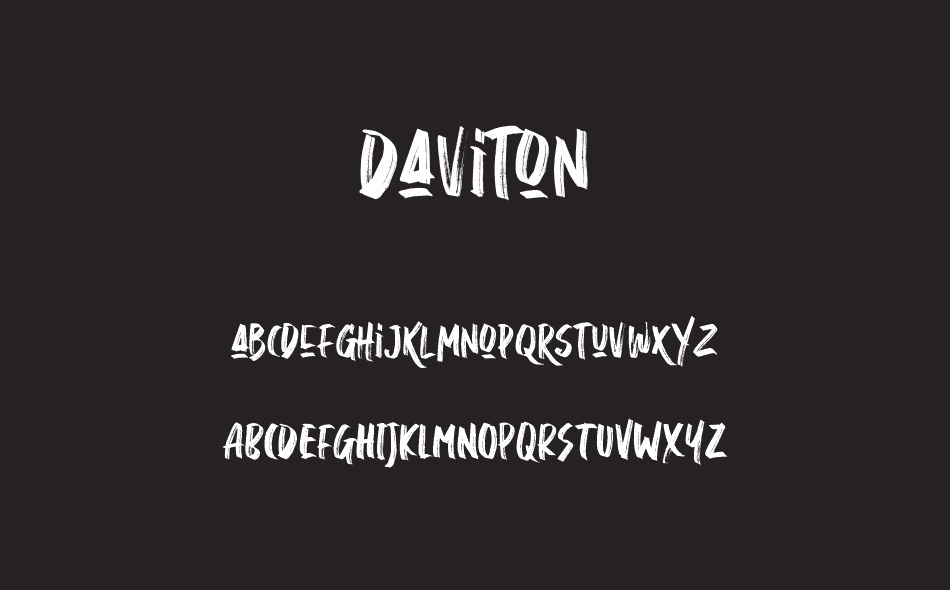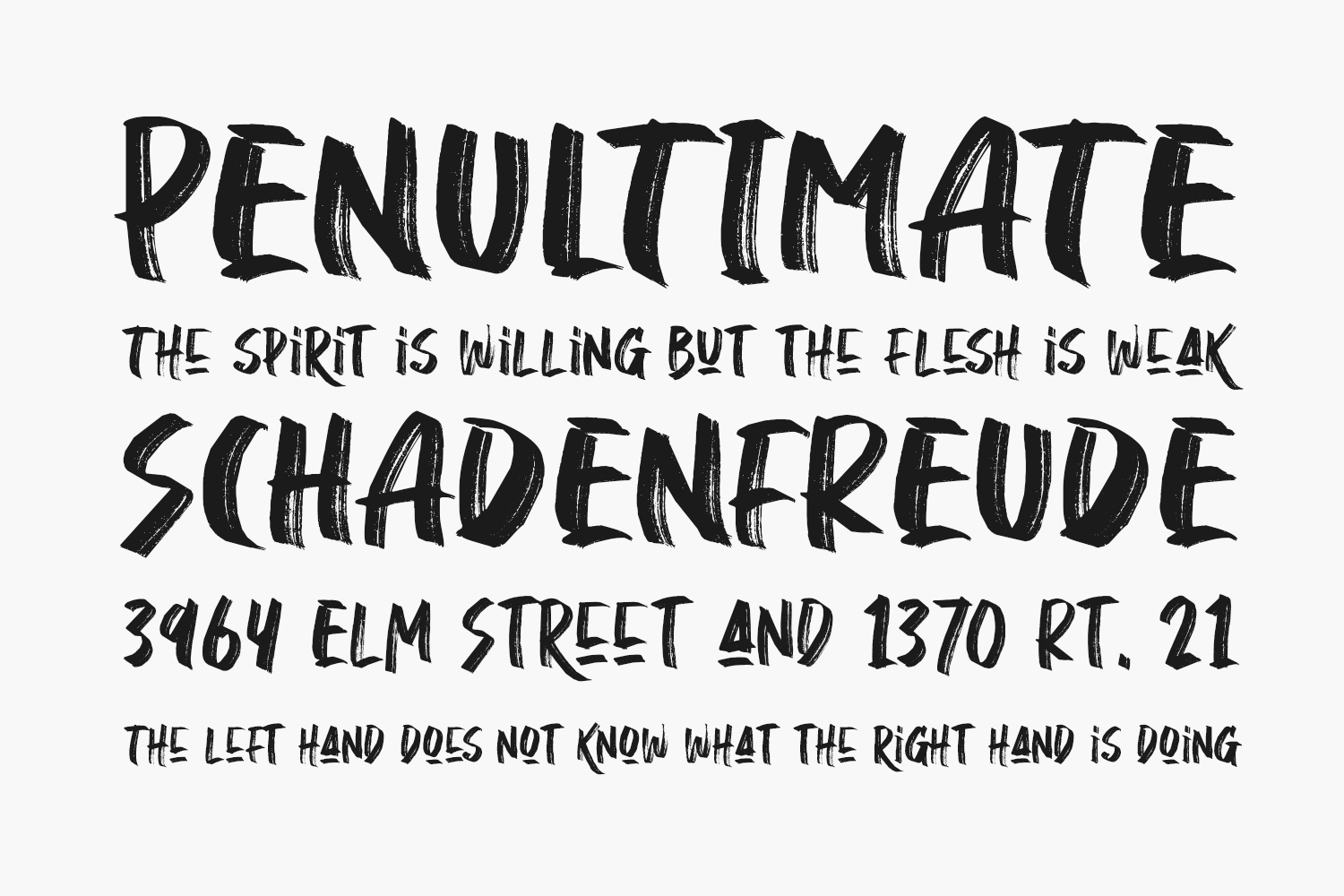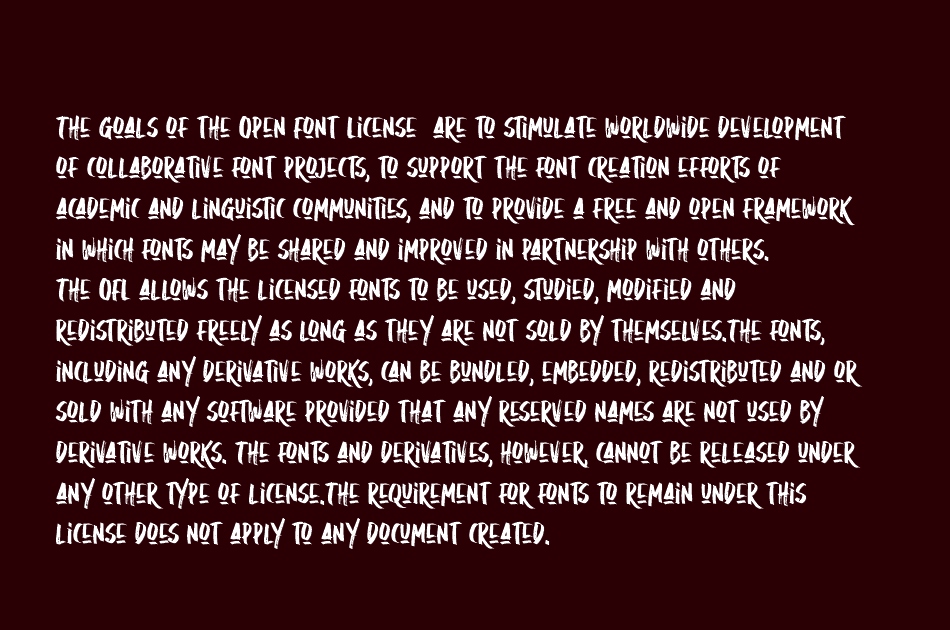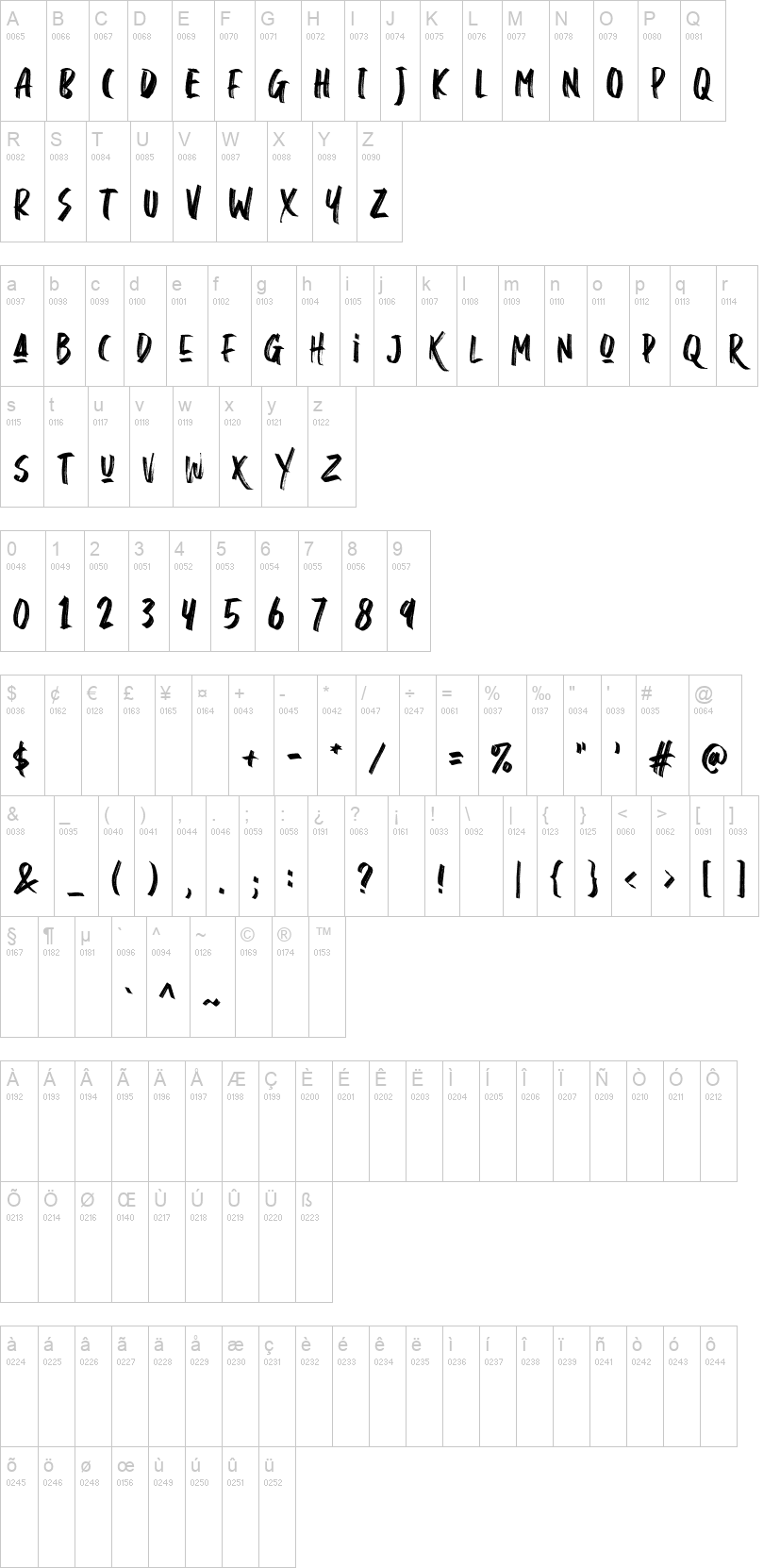
Daviton Brush Font
Daviton Brush Font - Web daviton brush font. 40,547 downloads (4 yesterday) free for personal use. It’s a gorgeous uppercase display brush font, designed with the modern vibe.
It’s a gorgeous uppercase display brush font, designed with the modern vibe. 40,547 downloads (4 yesterday) free for personal use. Web daviton brush font.
Web daviton brush font. 40,547 downloads (4 yesterday) free for personal use. It’s a gorgeous uppercase display brush font, designed with the modern vibe.
It’s a gorgeous uppercase display brush font, designed with the modern vibe. Web daviton brush font. 40,547 downloads (4 yesterday) free for personal use.
40,547 downloads (4 yesterday) free for personal use. It’s a gorgeous uppercase display brush font, designed with the modern vibe. Web daviton brush font.
Web daviton brush font. It’s a gorgeous uppercase display brush font, designed with the modern vibe. 40,547 downloads (4 yesterday) free for personal use.
It’s a gorgeous uppercase display brush font, designed with the modern vibe. 40,547 downloads (4 yesterday) free for personal use. Web daviton brush font.
Daviton Font
40,547 downloads (4 yesterday) free for personal use. It’s a gorgeous uppercase display brush font, designed with the modern vibe. Web daviton brush font.
40,547 downloads (4 yesterday) free for personal use. Web daviton brush font. It’s a gorgeous uppercase display brush font, designed with the modern vibe.
It’s A Gorgeous Uppercase Display Brush Font, Designed With The Modern Vibe.